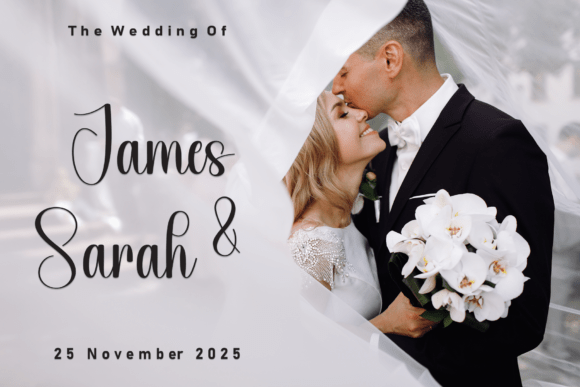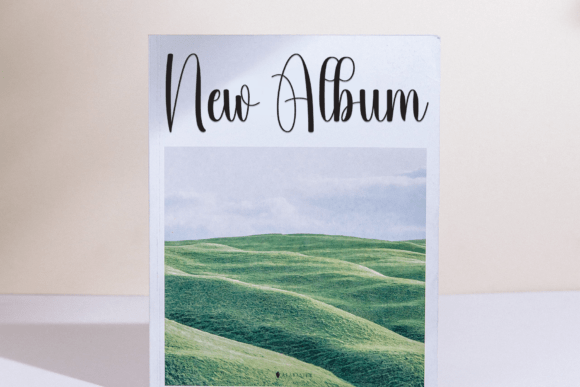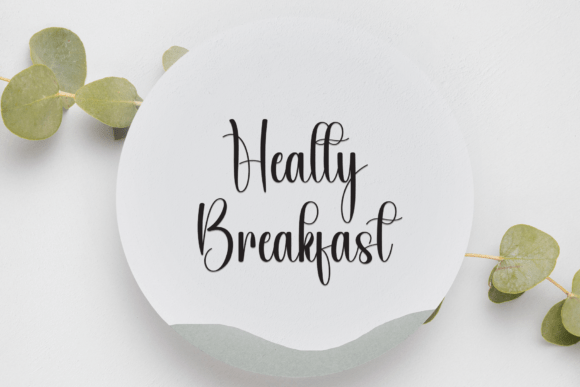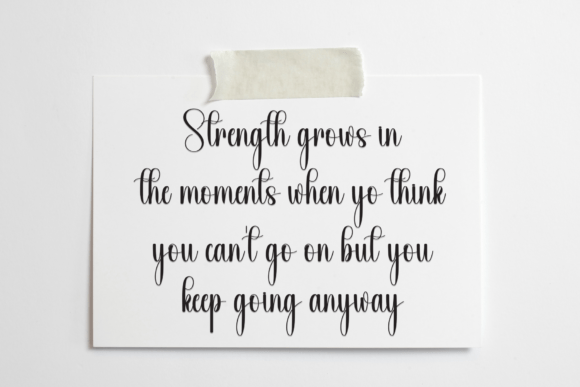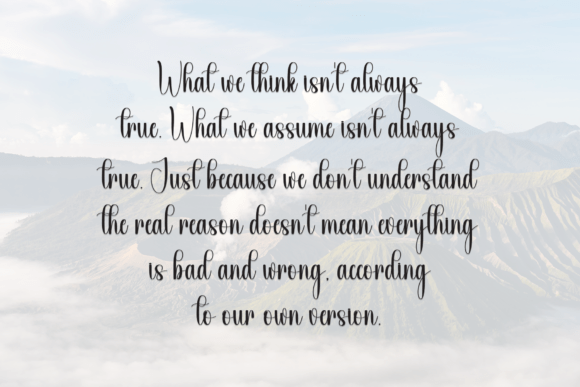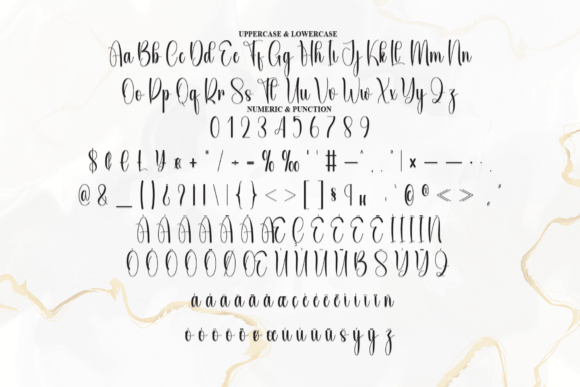
The Elegance of Elegant Font: A Designer’s New Best Friend
I still remember the design project that led me to discover the Elegant font. I was working on a logo for a boutique client, and I was struggling to find the perfect script font that exuded both artistic flair and contemporary elegance. The client wanted something that would make their brand stand out, but still convey a sense of sophistication. After hours of scouring font libraries and design blogs, I stumbled upon Elegant – a stylish script font that would change the game for my design projects.
An Honest Review: The Good and the Quirks
What I Love About Elegant Font
- ✨ Fluid brush strokes and dynamic curves that give it a hand-painted feel
- ✅ Expressive letterforms that add a touch of personality to any design
- 💫 Perfect for logos, invitations, packaging, and social media graphics
- 👍 Highly versatile and adaptable to different design styles
While Elegant font is a stunning addition to any design project, there are a few quirks to be aware of:
- ⚠️ Some characters may require manual kerning for optimal spacing
- 🤔 Limited use of uppercase letters, but the stylistic alternates make up for it
- Experiment with OpenType features, such as stylistic alternates and glyphs, to add visual interest
- Use the Glyphs panel to explore the font’s alternate characters and stylistic sets
- Take advantage of OpenType features, such as ligatures and swashes, to add a creative touch
- Use the font’s built-in stylistic alternates to add visual interest
The Story Behind Elegant Font
Elegant font was designed with the intention of capturing the essence of hand-painted calligraphy with a modern twist. The designer aimed to create a font that would exude artistic flair and contemporary elegance, making it perfect for creative projects and designs that require a touch of sophistication.
Q: What makes Elegant font unique?
A: Elegant font’s fluid brush strokes, dynamic curves, and expressive letterforms make it a standout in the world of script fonts.
Q: Is Elegant font suitable for body text?
A: While Elegant font is stunning, it’s best suited for headlines, titles, and short paragraphs. For body text, a more traditional font may be more readable.